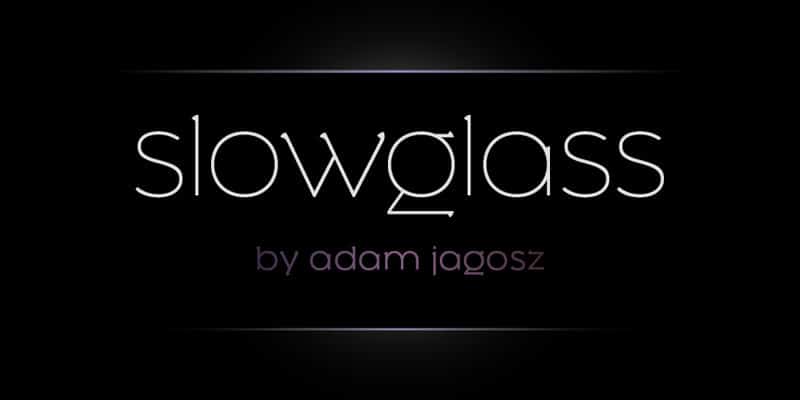
Slowglass Font
Slowglass Typeface
Slowglass is a geometric display typeface. It features wedge serifs inspired by the uncial script and softly rounded strokes that lend it a friendly voice. This is the first version of the typeface which is a unicase design of mostly lowercase appearance.
Adam Jagosz